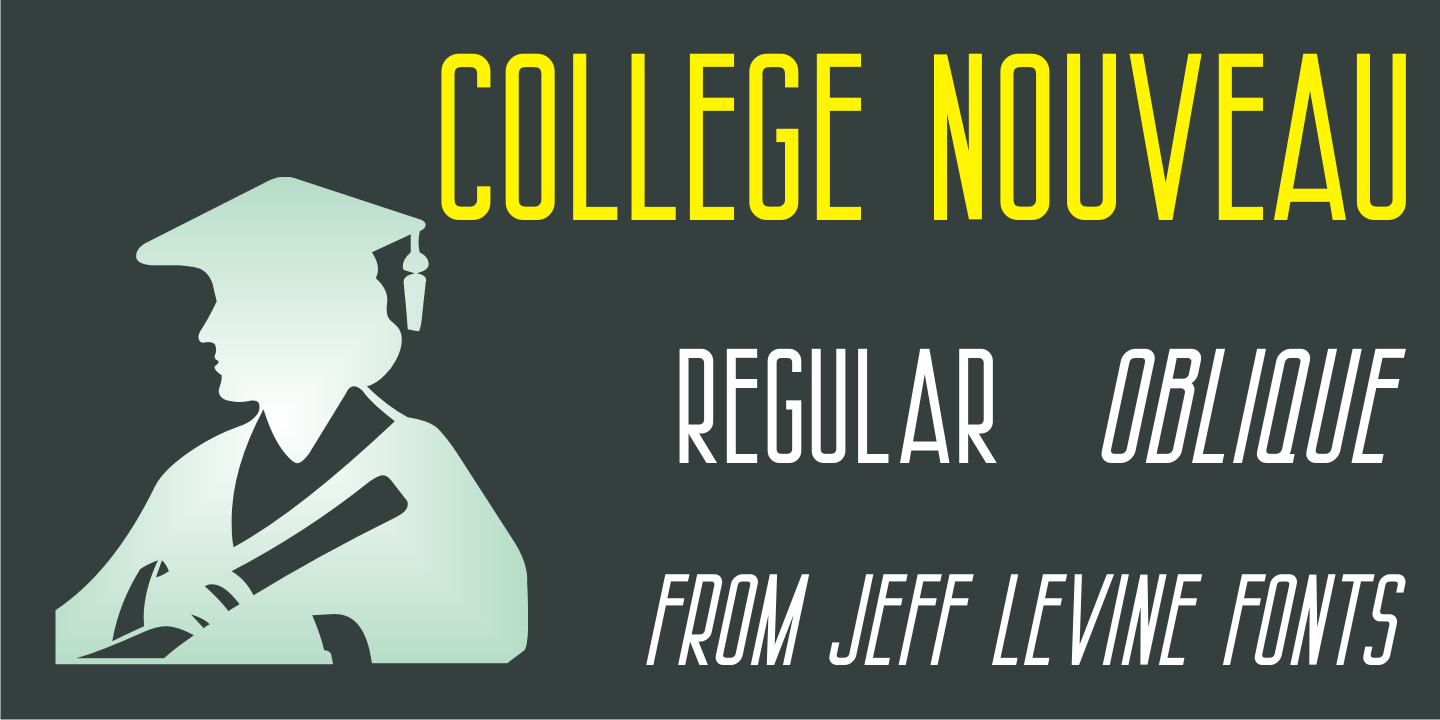
College Nouveau
By the late 1920s, lettering and design had already begun to feel the influences of what would become the Art Deco Movement.
The sheet music for the 1927 song 'Without You Sweetheart” had its title hand lettered in a block style letter with rounded corners – with the exception of the 'S' and 'R' in 'Sweetheart”; reflecting design elements of both styles.
For consistency, those letters were changed to fit the rest of the design, and the result is the digital font College Nouveau JNL, available in both regular and oblique versions.